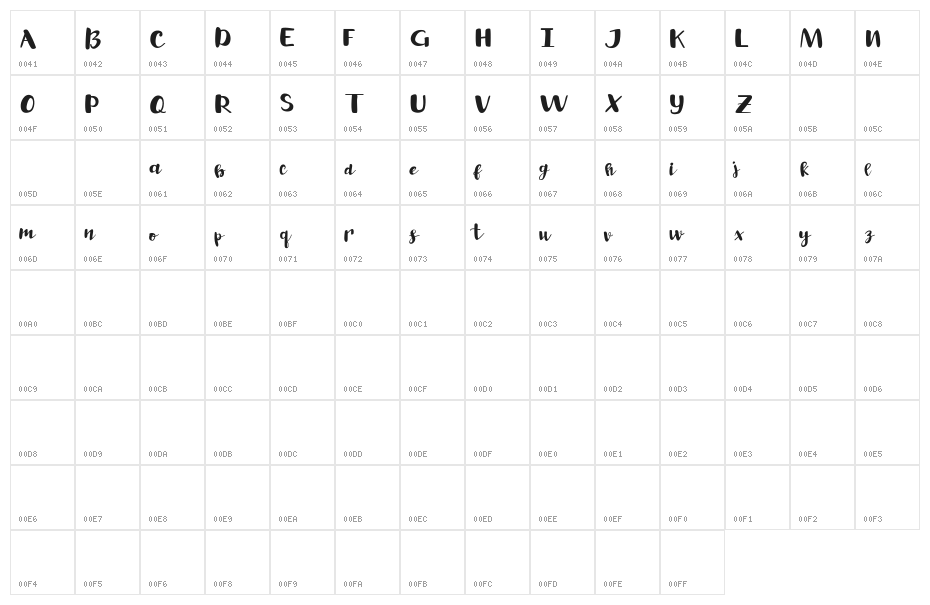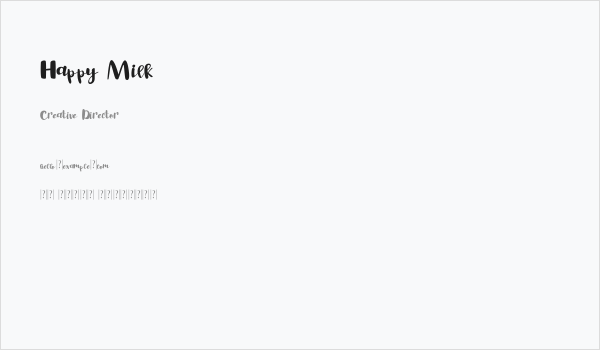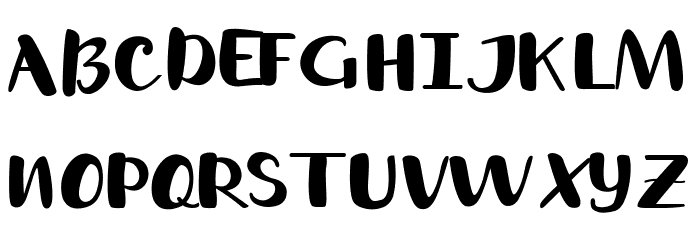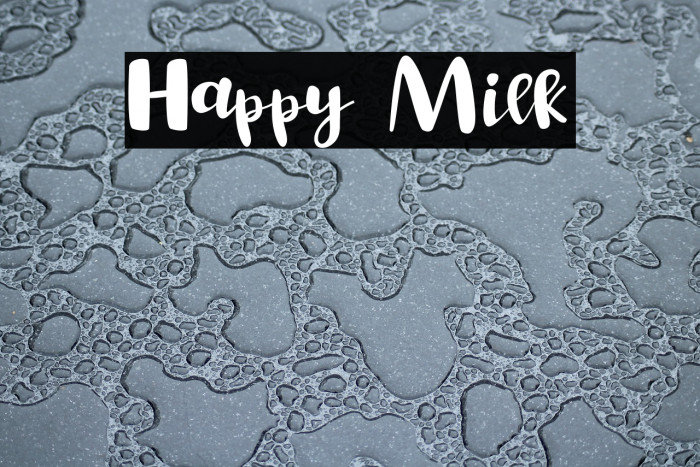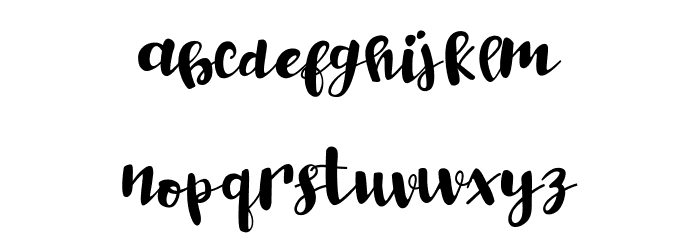
Happy Milk Font
Happy Milk Description
This font features a playful and whimsical style, characterized by its bold and rounded letterforms. The uppercase letters exhibit a strong presence with a slight slant, adding a dynamic feel. The lowercase letters are more fluid and script-like, offering a charming contrast to the uppercase. The overall design is reminiscent of hand-drawn lettering, with a friendly and approachable appearance. The strokes are thick and consistent, providing a sense of stability and readability. This font is well-suited for projects that require a fun and informal touch, such as children's books, playful branding, or creative invitations.
| Proposed Projects | Ideal for children's books, playful branding, creative invitations, and casual designs. |